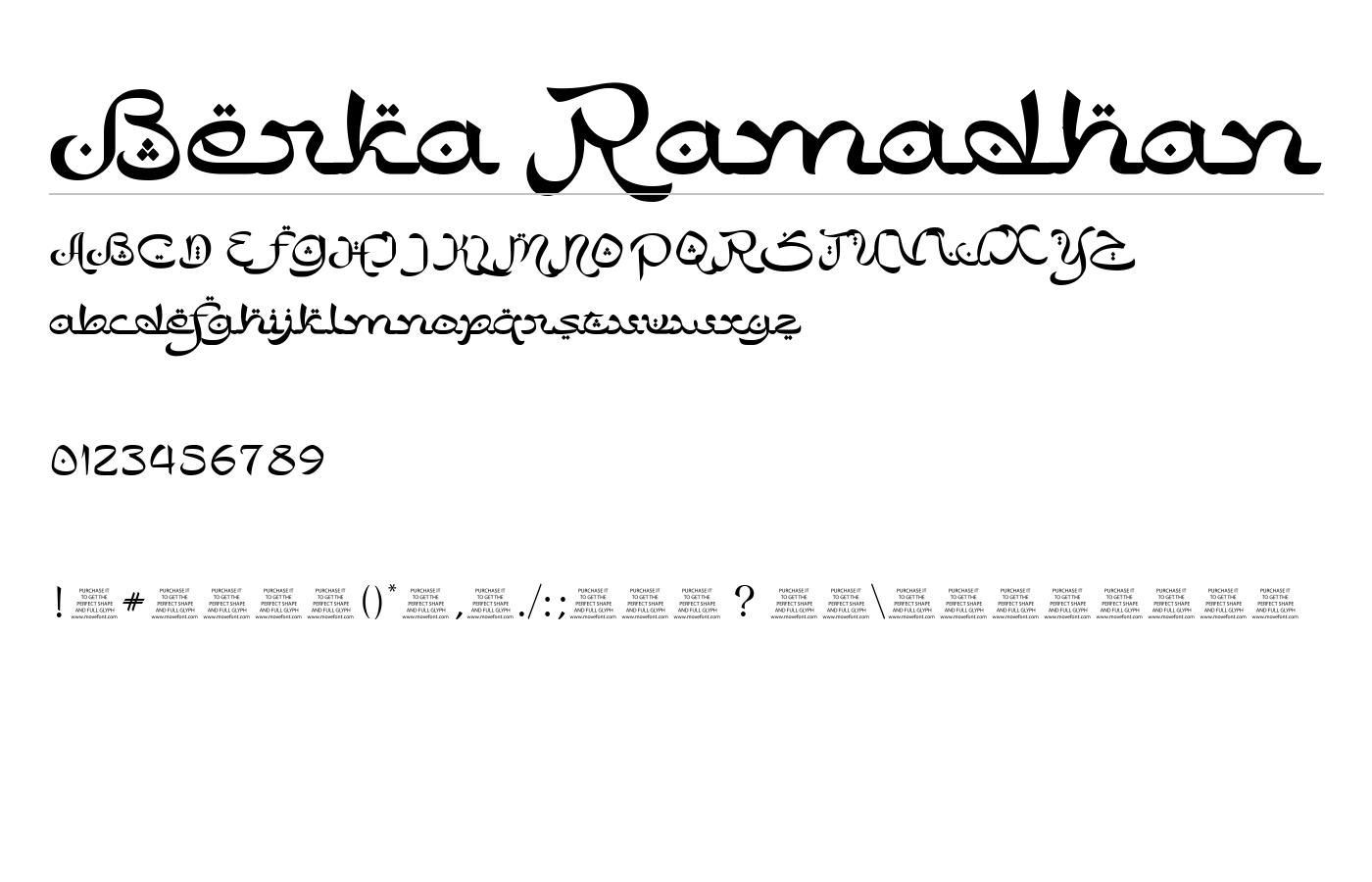
Berka Ramadhan is a unique and decorative script font featuring a bold, rounded style with artistic and playful curves that give it a whimsical, handcrafted feel. Its distinctive letterforms, accented with dot and stroke embellishments, make it ideal for creative branding, festive designs, and eye-catching headlines where personality and charm are desired. This font works beautifully in projects celebrating cultural themes or special occasions, adding a lively and joyful touch.
Berka Ramadhan Font
About Berka Ramadhan Font
| Designer | Muhmmad Nur Alamsyah |